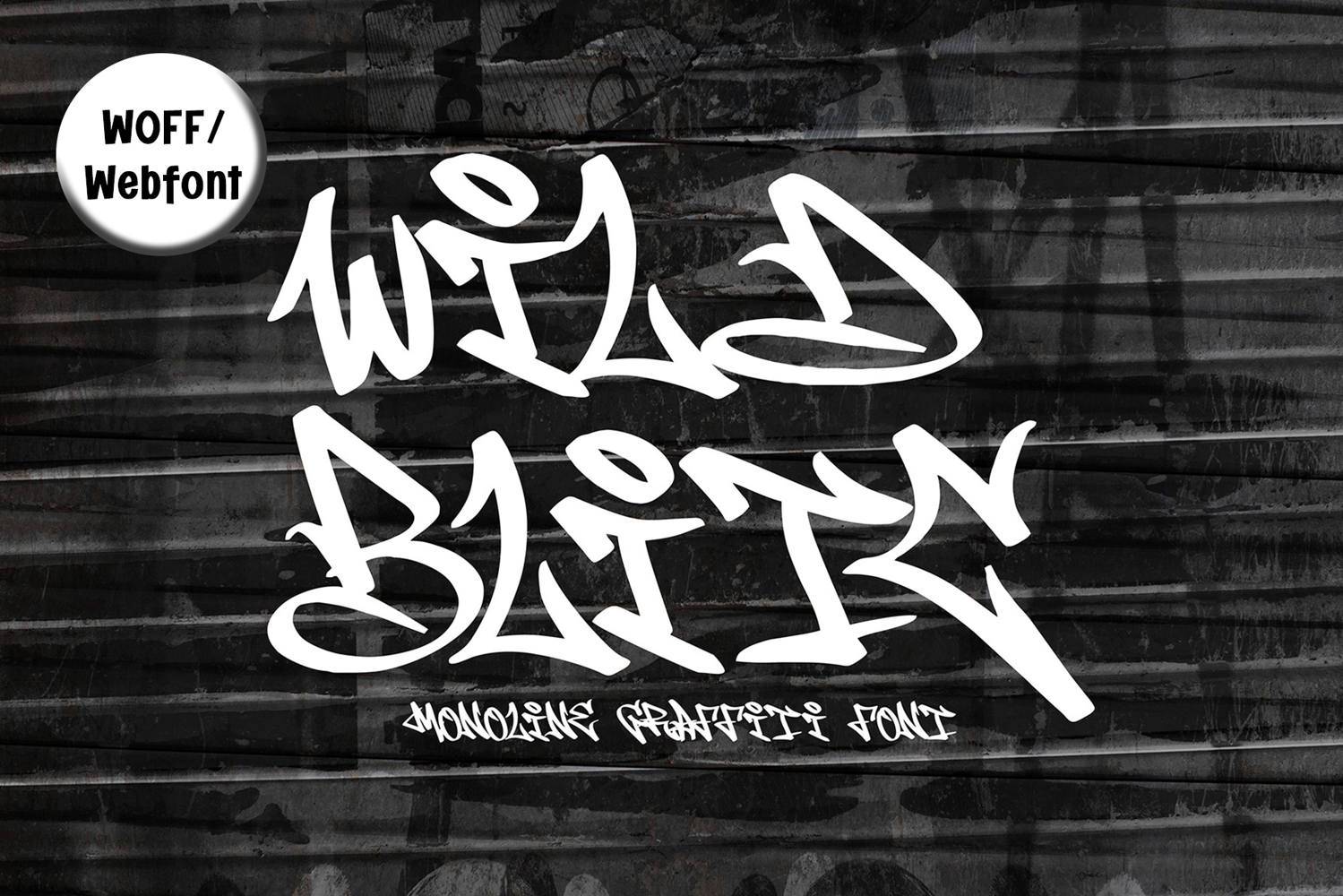
Wild Blitz |Monoline Graffiti Webfont
Wild Blitz is a monoline graffiti webfont built for designers who want to bring authentic street vibes into the digital world. Inspired by real graffiti handstyle, its bold strokes and organic flow make it perfect for websites, blogs, fashion e-commerce, hip-hop culture pages, and digital campaigns. With uppercase, lowercase, numerals, punctuation, multilingual support, and ligatures, Wild Blitz ensures creative freedom and strong branding impact online. Delivered in lightweight WOFF format, this webfont guarantees fast load times while preserving visual quality, giving your website the edgy, rebellious feel of true graffiti culture.